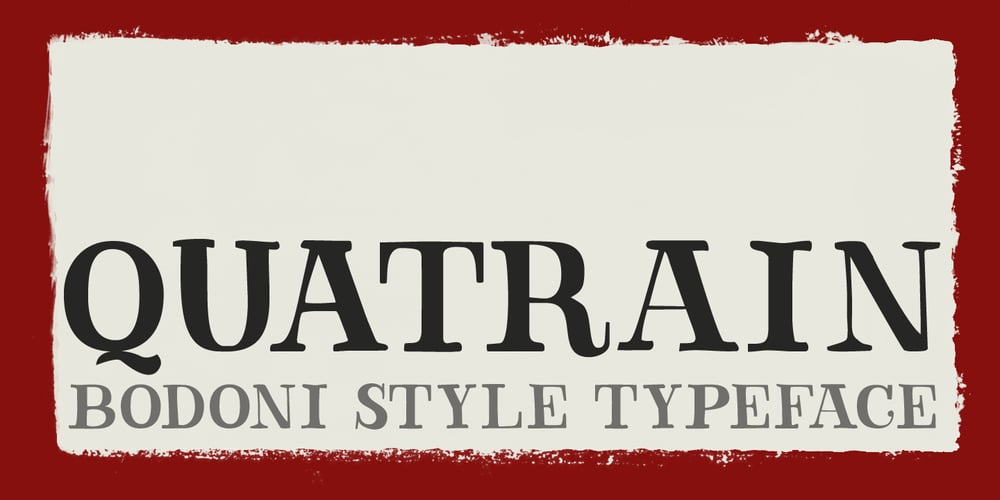
Quatrain Font Family was designed by David Kerkhoff and published by Hanoded. Quatrain contains 2 styles and family package options. Quatrain is a hand-drawn, all caps typeface based on Bodoni. It is a little rough, a little uneven, but lively and elegant as well. Quatrain looks good on packaging, or in headlines. Comes with an abundance of diacritics.